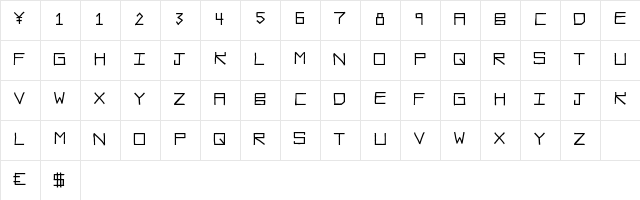
RawDiet Regular
| Foundry | Xerographer Fonts |
| Designer | Xerographer Fonts Max Infeld |
Design Context for RawDiet Typeface
RawDiet takes a measured approach to typography — its balanced proportions and neutral character make it a reliable workhorse for both digital and print work.